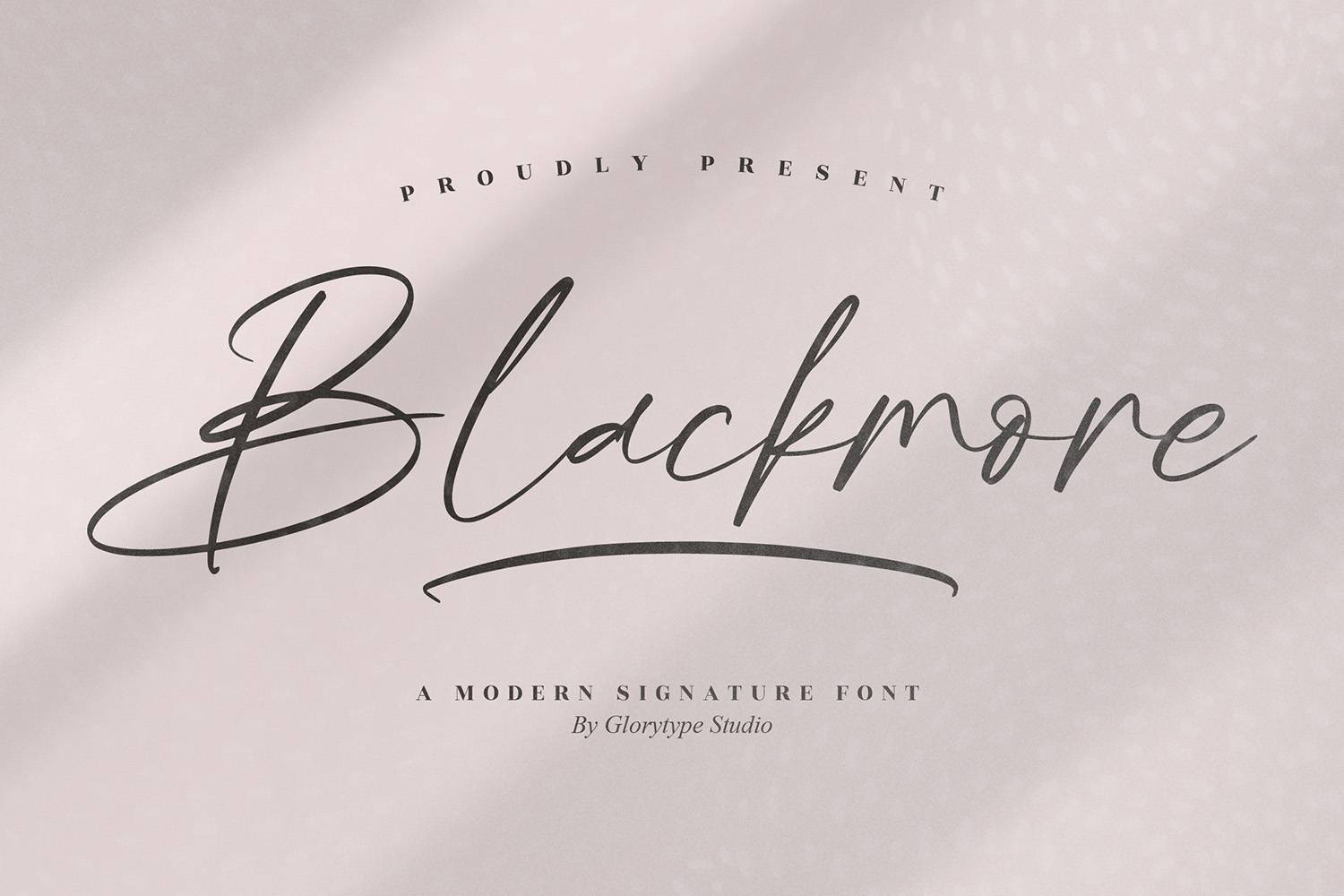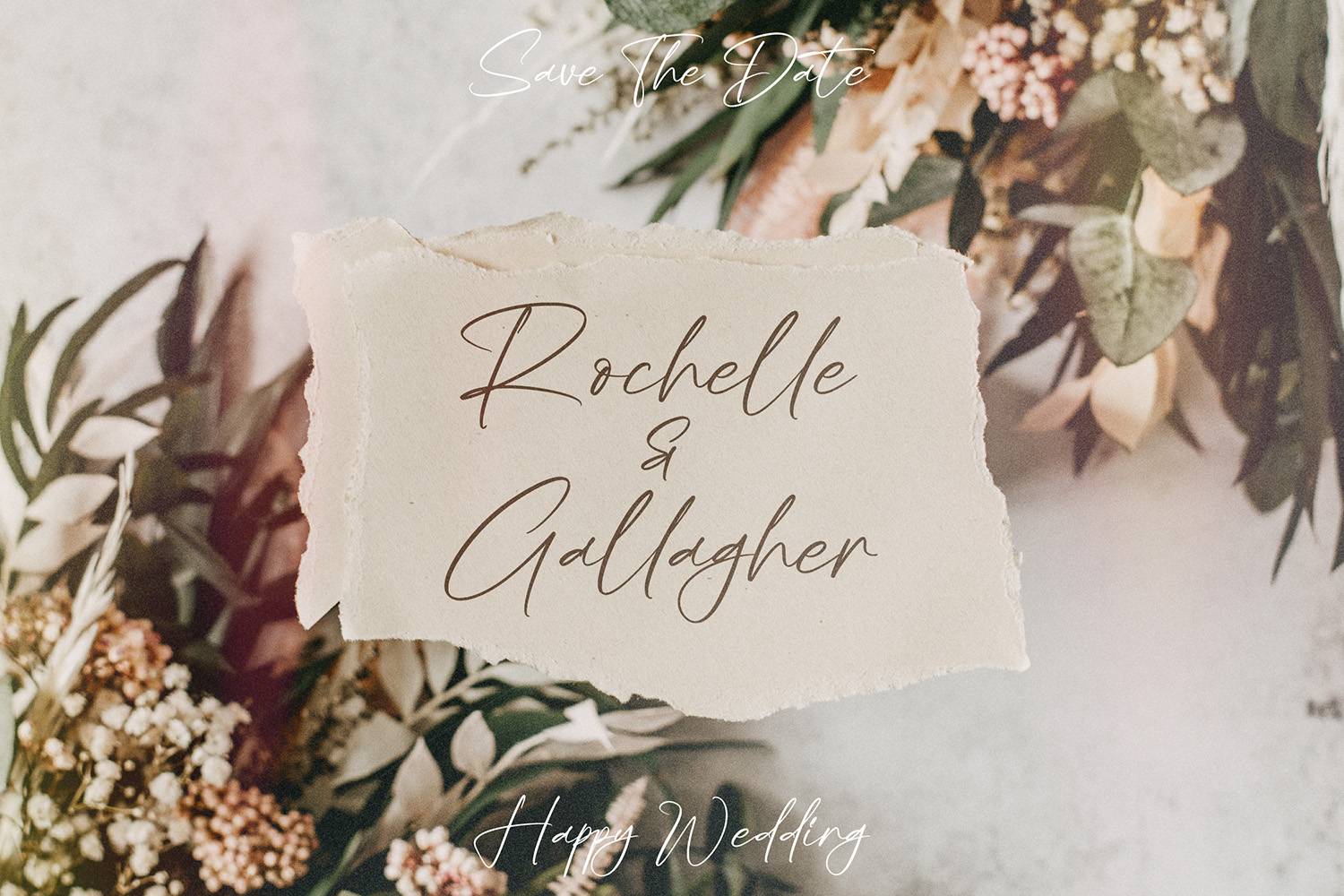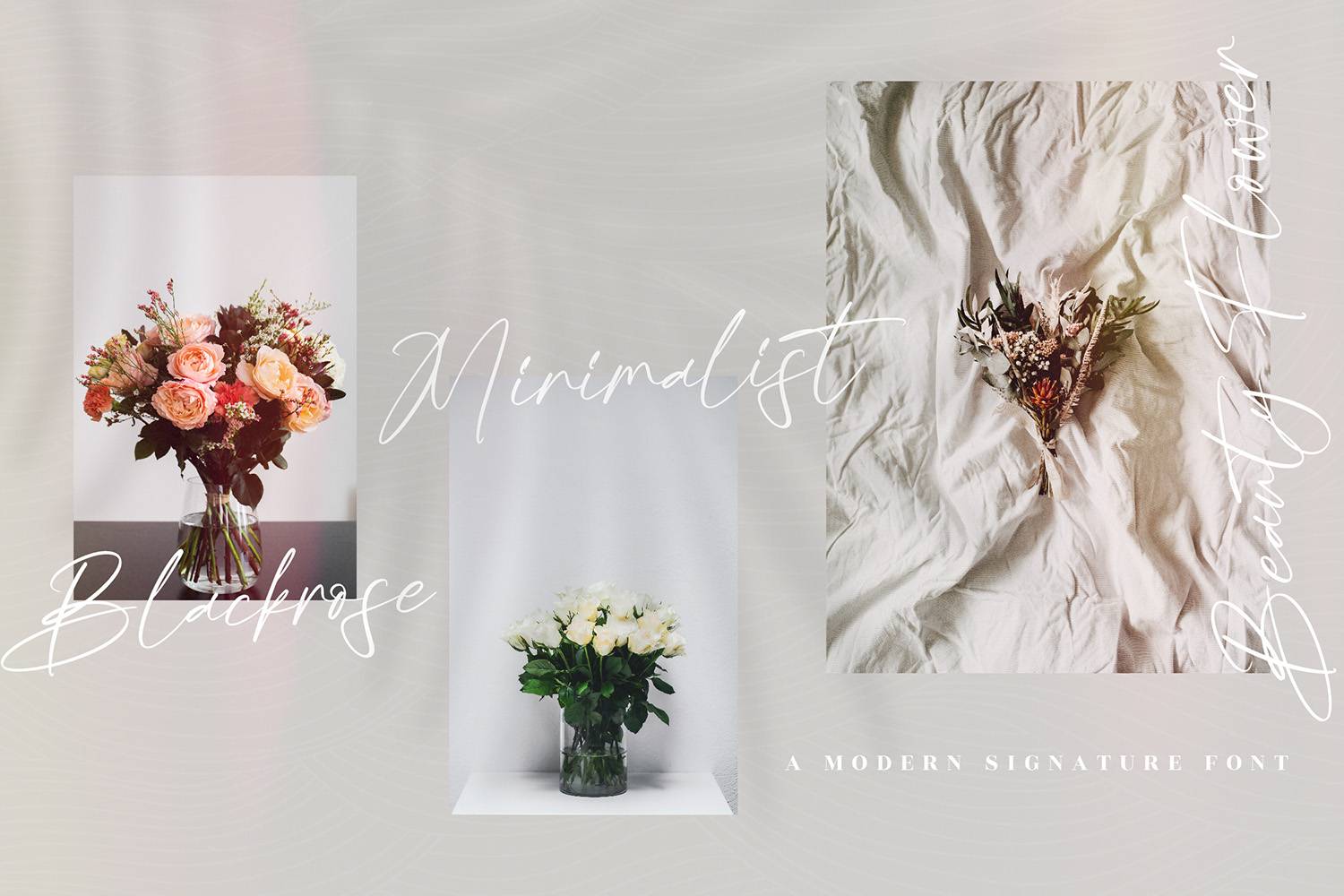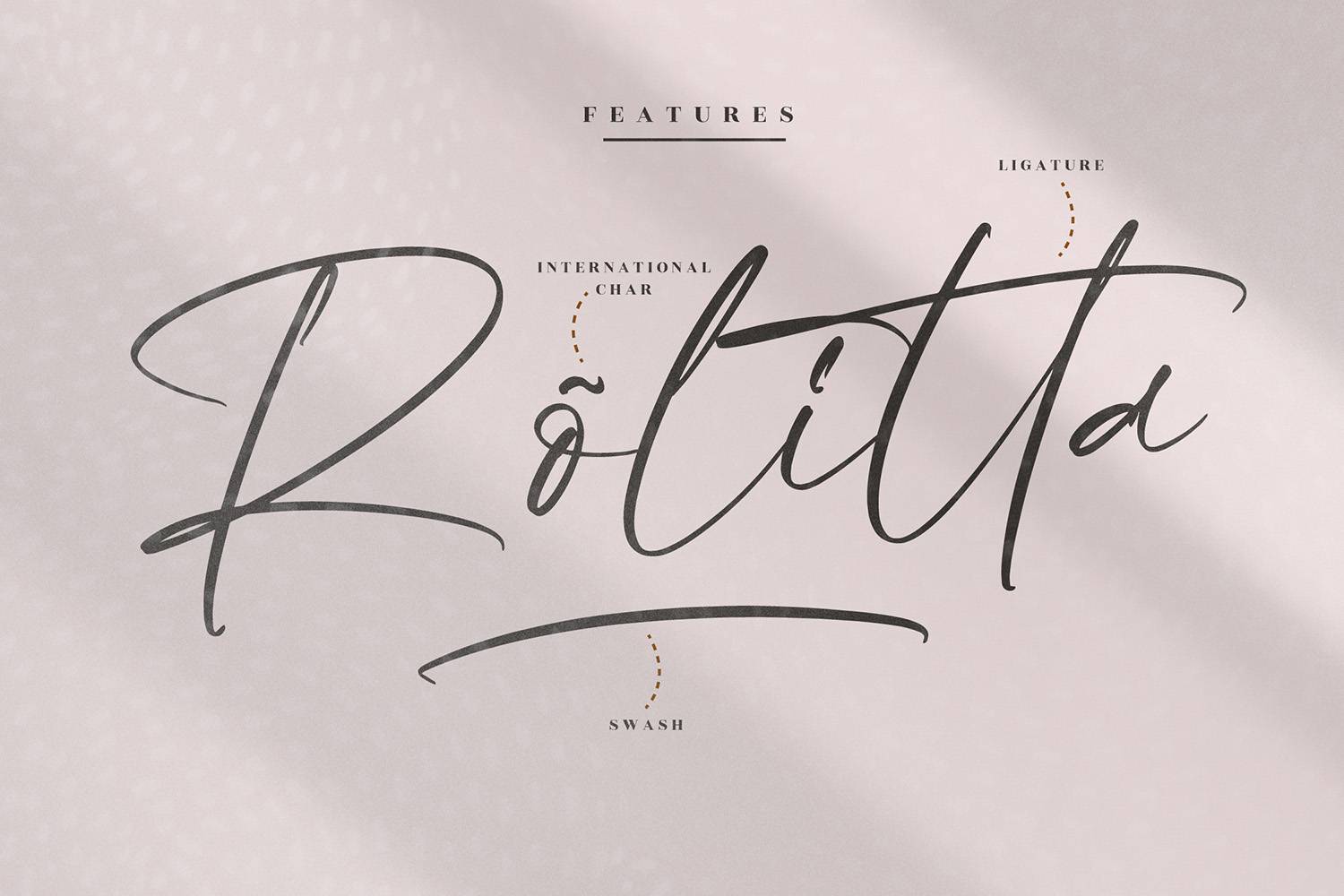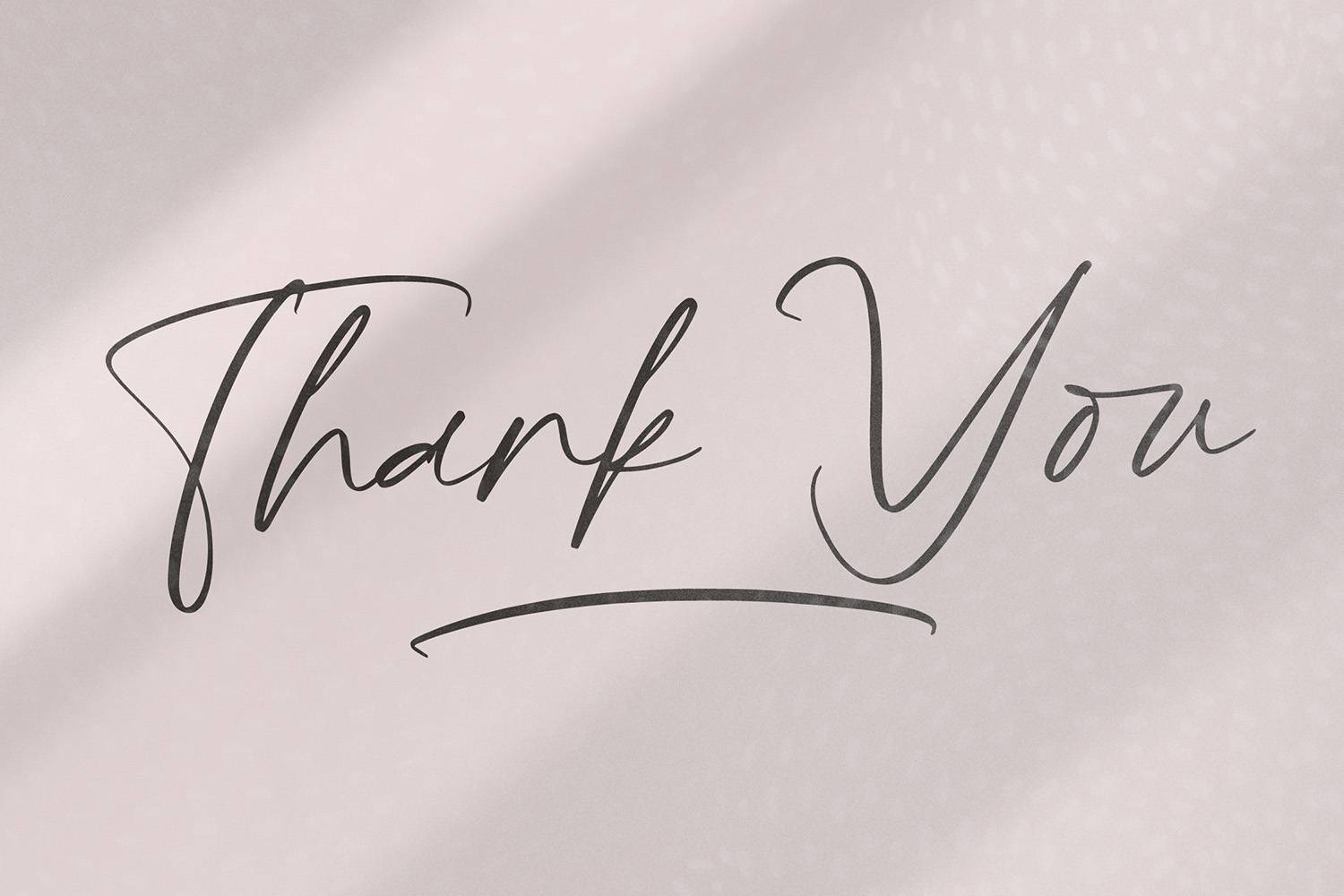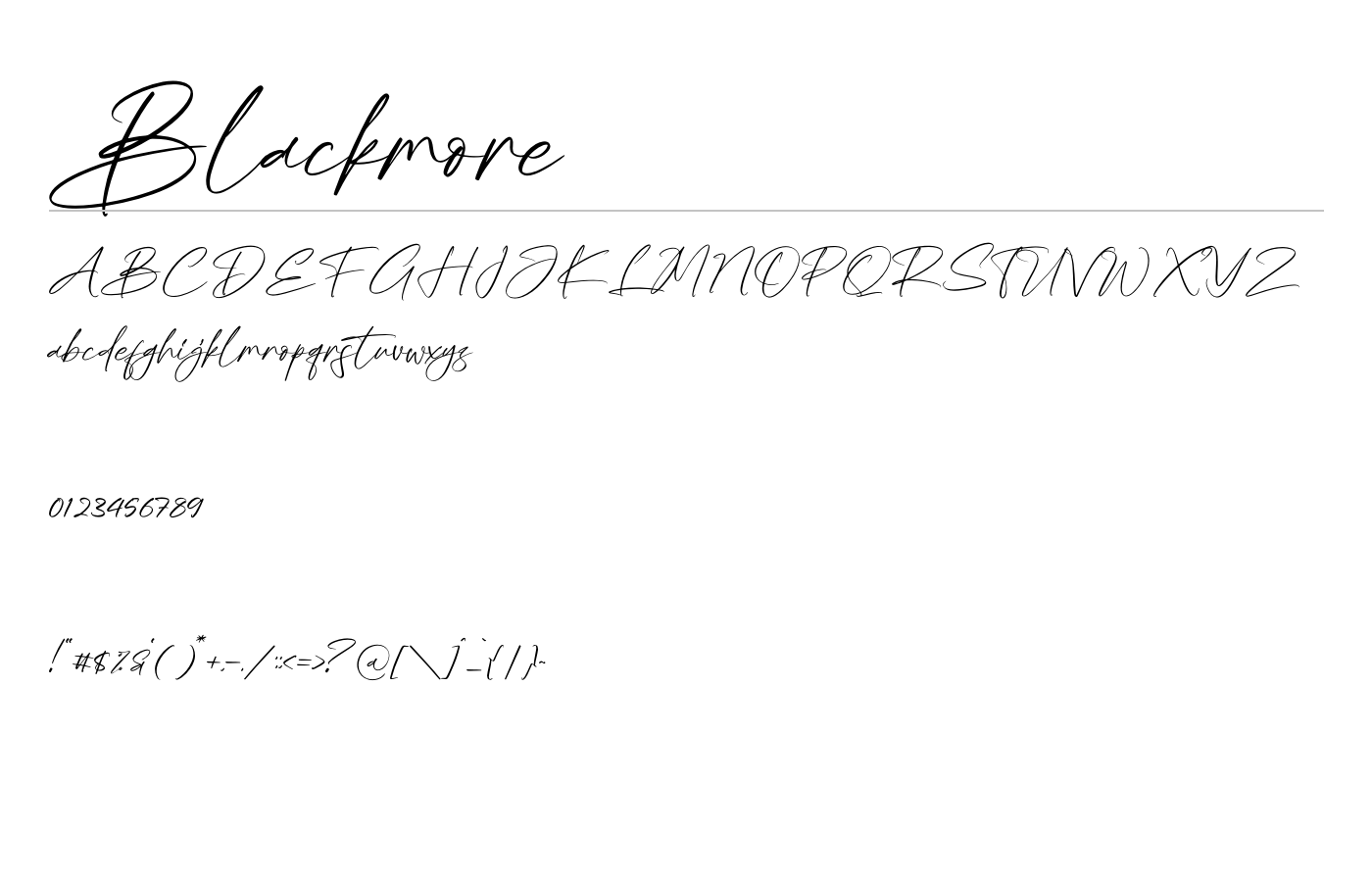
Blackmore is a delicate, elegant script font with a flowing, handwritten style that combines fine lines and smooth curves to create a sophisticated yet approachable look. Its light weight and airy letterforms make it perfect for adding a personal, stylish touch to invitations, branding, and editorial designs where a sense of grace and refinement is desired. This font works beautifully in headlines and logos, lending a chic and modern flair without sacrificing readability.
Blackmore Font
About Blackmore Font